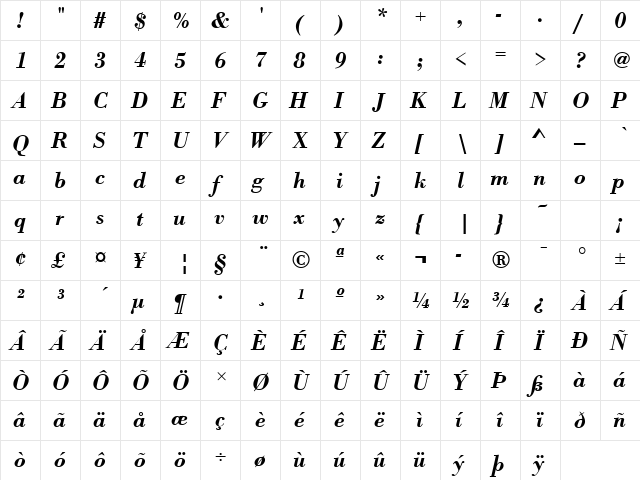
BodoniAntTDemBol Italic Font Preview
BodoniAntTDemBol Italic
BodoniAntTDemBol Italic Font Details
Design Context for BodoniAntTDemBol Typeface
BodoniAntTDemBol offers clean, dependable letterforms without strong stylistic allegiance, making it a practical choice for designers who need flexibility. The slanted form adds forward momentum and visual energy.